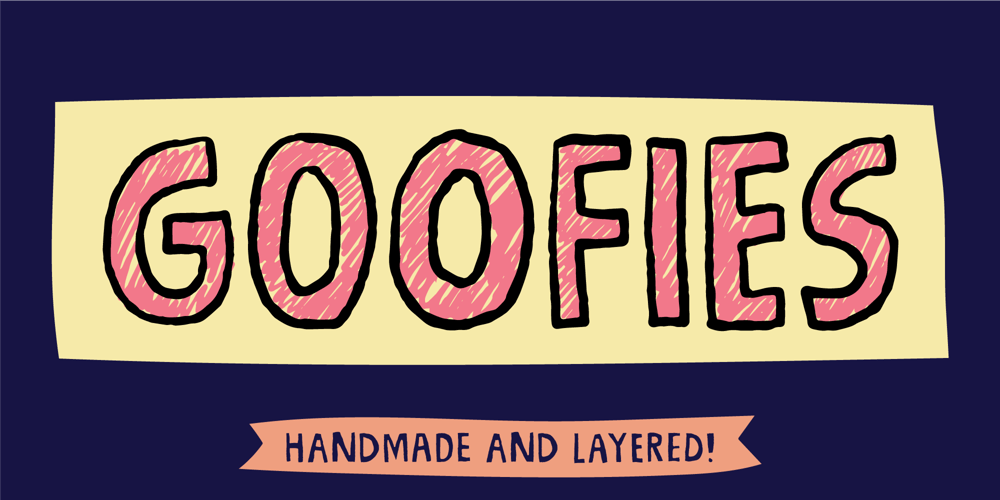
Goofies
Goofies font
Goofies Font Family was designed by Jakob Fischer and published by PizzaDude.dk. Goofies contains 4 styles and family package options. Goofies is a nice notepad-ish font, suitable for something that needs an organic and handmade looking feel. That could be for your next poster, comic, invitation, recipe or something else that needs a creative boost!I have added several versions, and they all work very well as a single font, but even better together.I even added a total of 5 different versions of each letter, as well as multilingual support!